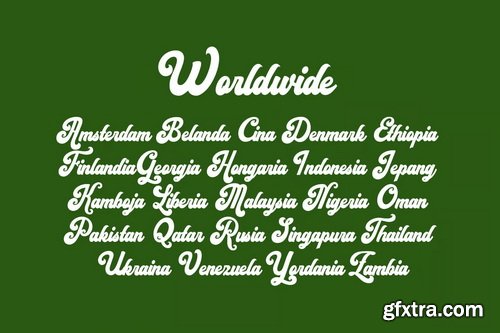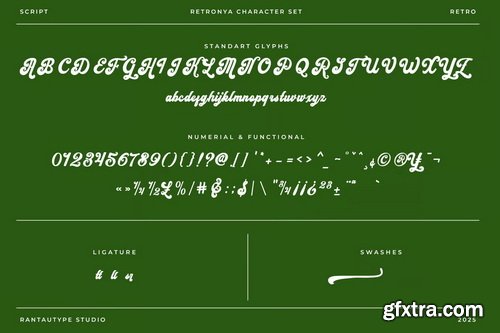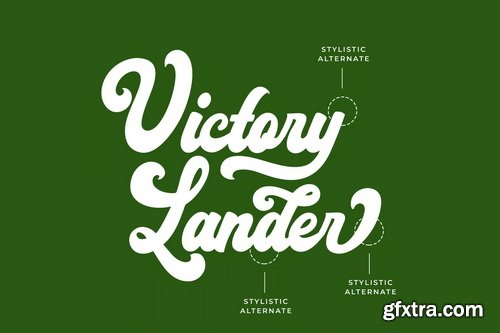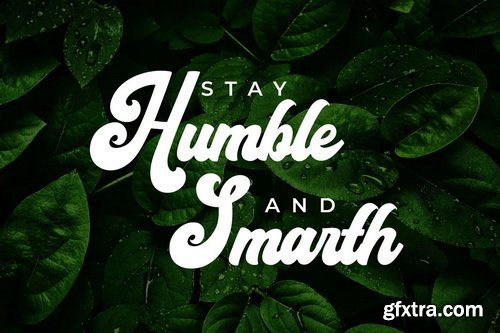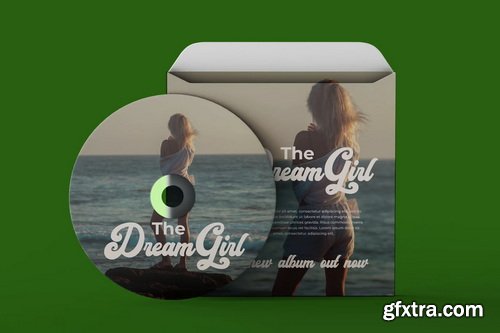
Retronya Retro Script Font
Retronya is retro script font with bold and playful style. Retronya is a perfectly choice for any creative endeavor, creating, retro, lifestyle design such as logotype, title, cover, branding, invitations, wedding designs, display and magazine, social media posts, advertisements, printed quotes, product packaging, corporate brand, product designs, labels, photography, watermarks, special events and any other project with playful touch.